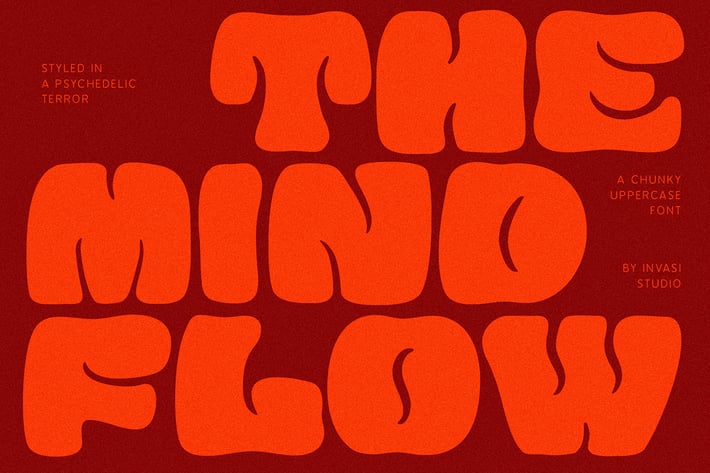
Mindflow - Fat Display Font
Mindflow is a fat, chunky display font with chic elegance and playfulness. Its charmingly bold design brings an instant touch of modern flair to any project, capturing the essence of the classic psychedelic movements of the 1970s. It's got an irregular curve and surface, which gives it a handmade feel.
The key to Mindflow is its flexibility. You can use Mindflow for packaging design, poster design, logo design, or visual identity design. It adds a touch of sophistication and charm to anything it touches. Mindflow font's charismatic and adaptable style will let your creativity flow effortlessly.